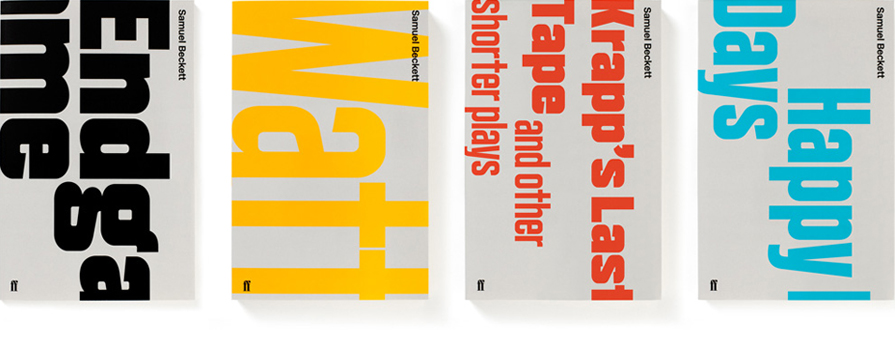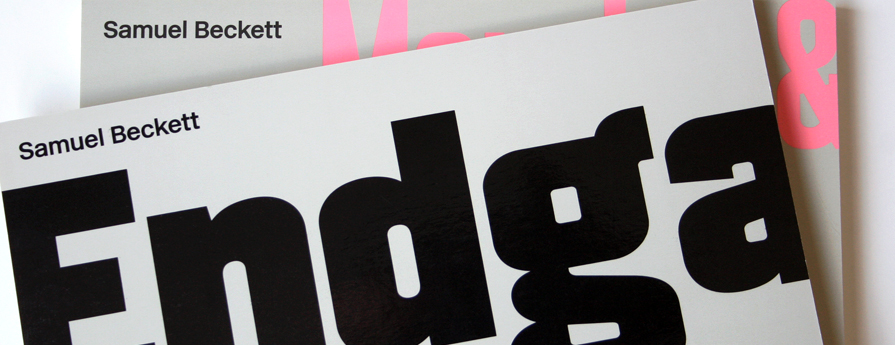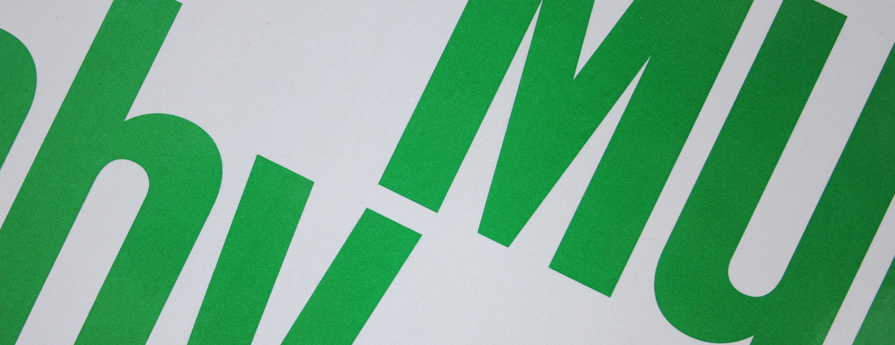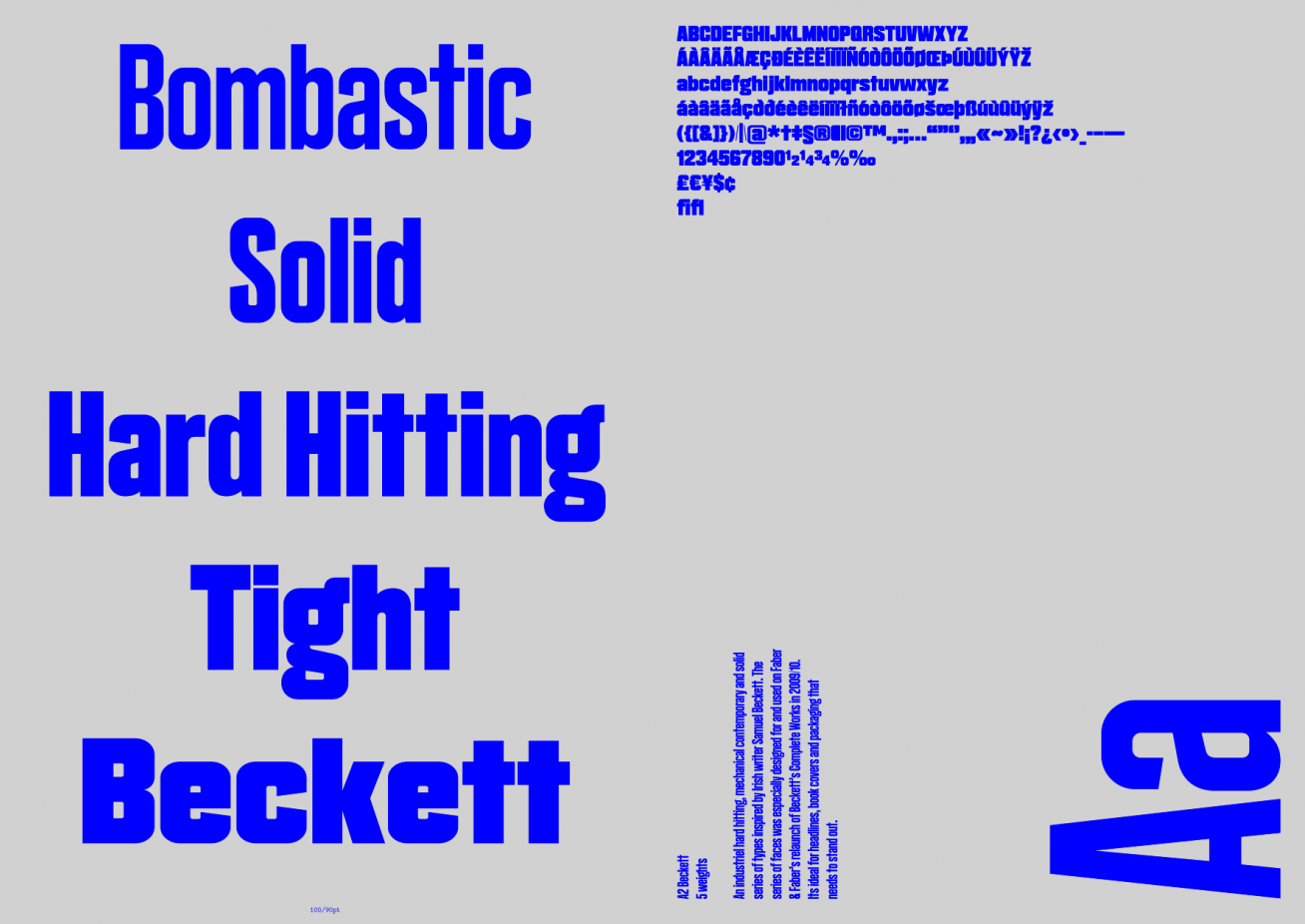
A2 Beckett was originally designed for the Faber & Faber series of book covers ‘Samuel Beckett: Complete Works’ in 2009. The typeface’s origins are from machine-cut era wood type, characterised by a hard edge that creates an immediate impression on any surface. The font family was updated and re-released in October 2017, with 11 styles: from Extralight to Heavy. Note, if you purchased a legacy version of this font (2010–October 2017) and require webfonts or additional styles for this discontinued version, then please contact us.
| Font name: | Beckett |
| Font category: | Sans |
| Styles: | Extralight Light Regular Book Medium Semibold Demibold Bold Extrabold Black Heavy |
| Manufacturer: | A2-TYPE |
| Designer: | Henrik Kubel |